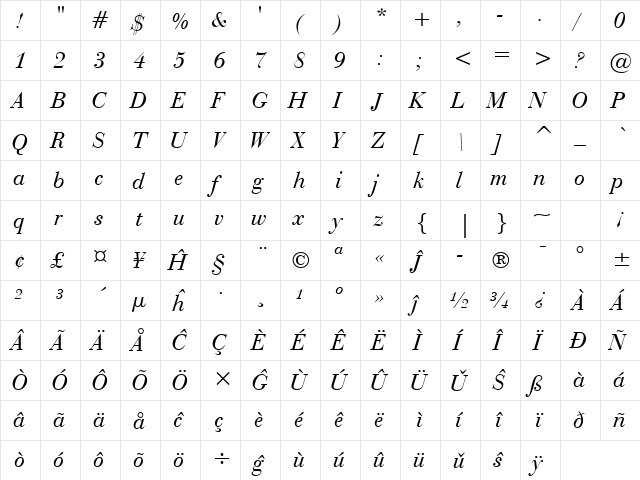
BauerBodni BT Eo Italic Font Preview
BauerBodni BT Eo Italic
BauerBodni BT Eo Italic Font Details
Design Context for BauerBodni BT Eo Typeface
BauerBodni BT Eo offers clean, dependable letterforms without strong stylistic allegiance, making it a practical choice for designers who need flexibility. The dynamic lean of this cut emphasises speed and emphasis in any layout.
Pro Tip: Use BauerBodni BT Eo for emphasis, pull quotes, and subheadings where its slanted energy can add rhythm to the layout.